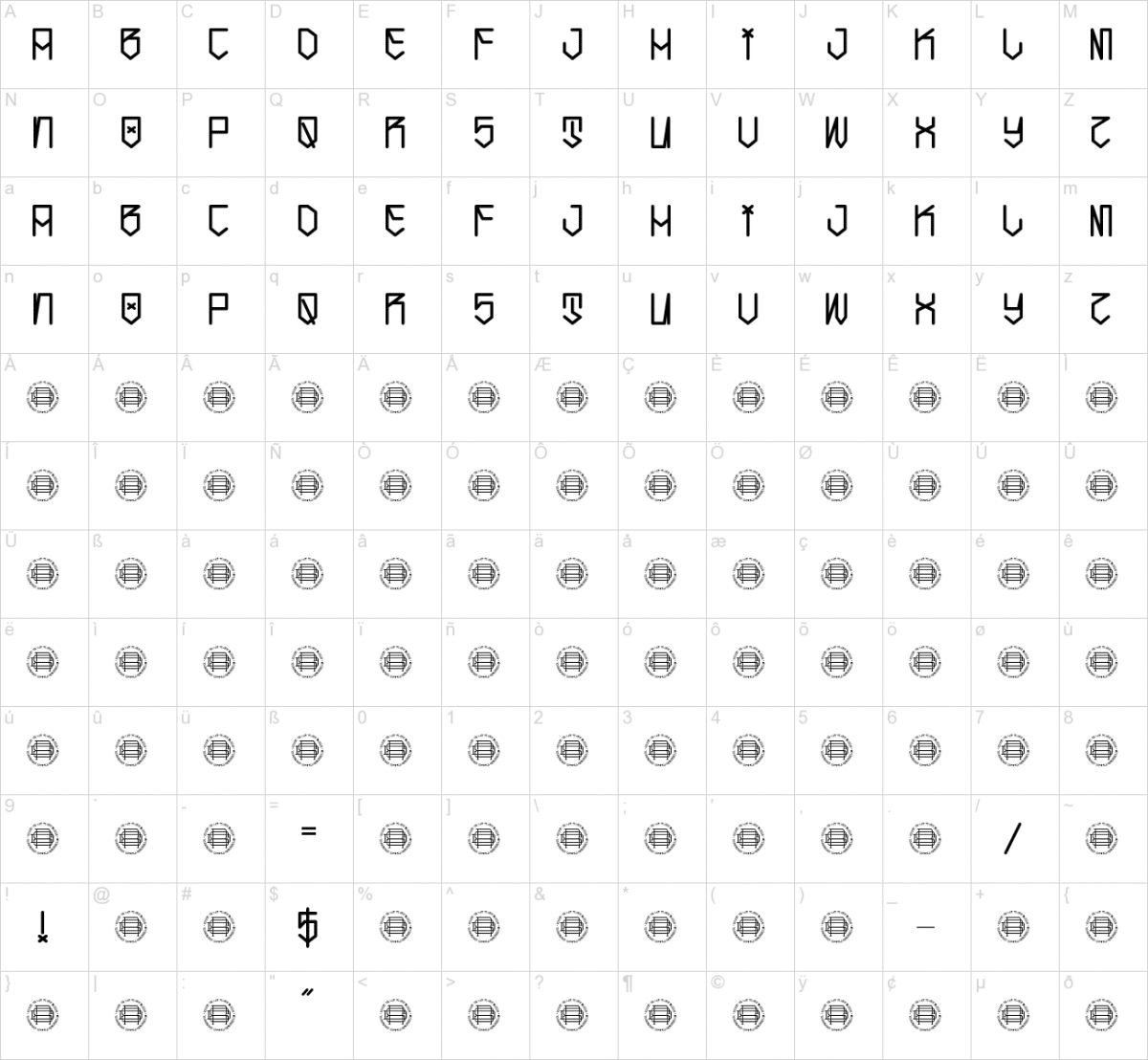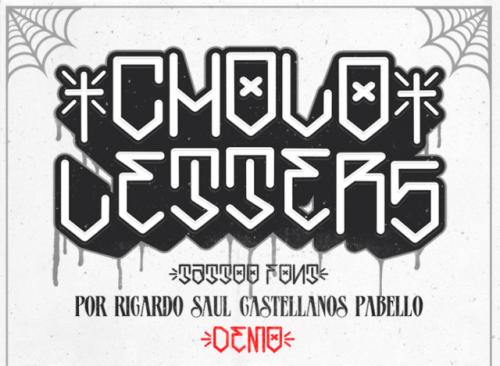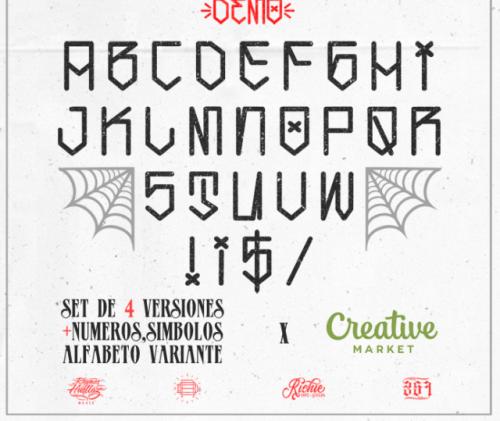
Cholo Letters is a typeface inspired by the style of letters of the urban culture of Cholos / Gangs, created by Ricardo Saul Castellanos Pabello “Richie Mx” in the design studio “Riders on the Storm Design”.